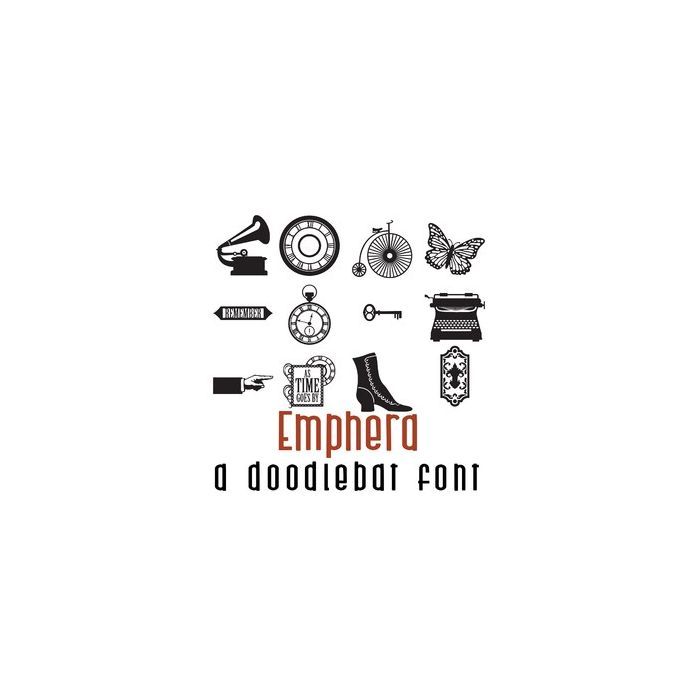
Emphera Doodlebat Font
This beautiful doodlebat font features 36 vintage style images! Perfect for cards, crafts, gifts, decor, scrapbook pages, planner stickers, and more!